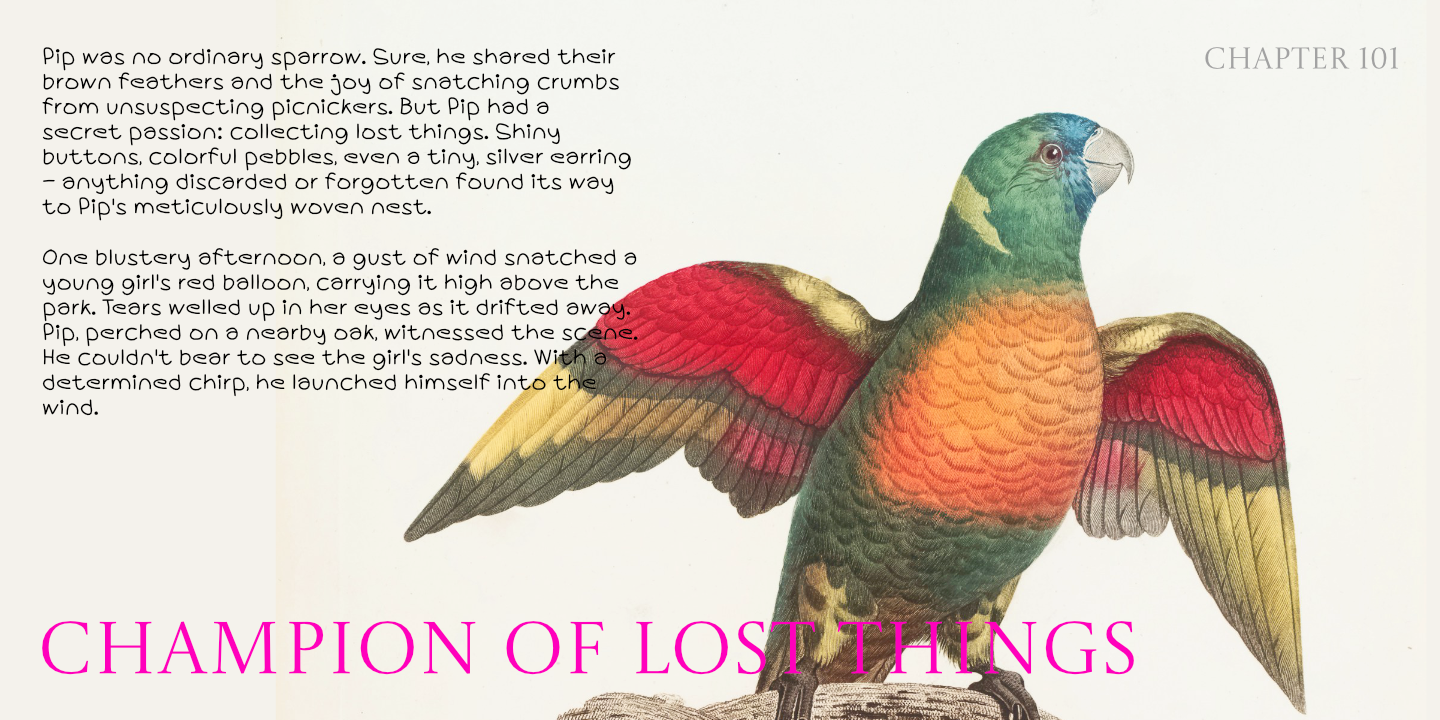
FF Spoken
FF Spoken is a hand drawn font family published by ffeeaarr.
Imagine a child’s enthusiastic penmanship, all wiggles and curves. This font captures that joyful energy with letters that dance and swirl. Some characters might have bouncy baselines, playful loops, or unexpected flourishes. It’s a font that breaks the rules of perfect penmanship, celebrating the messy charm of a free-flowing imagination.